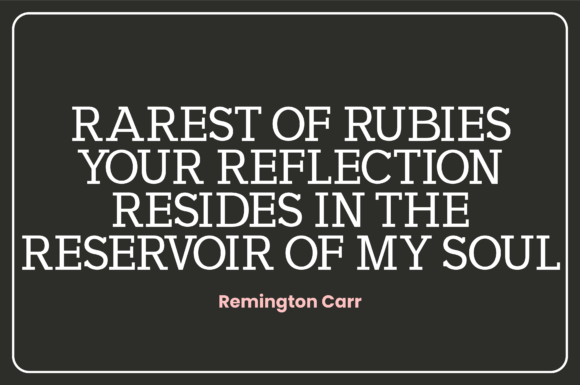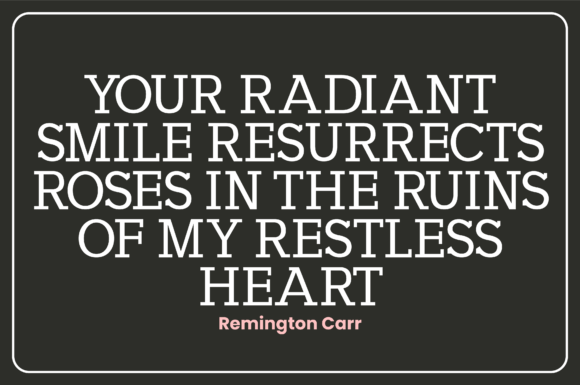
Anduba Font
Introducing Anduba – the epitome of elegance, style, and sophistication. This unique slab serif font trio, comprised of Regular, Italic, and Retalic, effortlessly infuses your work with an aura of chic refinement.Ideal for a wide array of applications, Anduba shines in creating eye-catching labels for luxury perfumes and cosmetics, crafting engaging magazine covers and posters, formulating captivating flyers and social posts, and adding flair to fashion designs.When you incorporate Anduba in your creative repertoire, you’ll be delighted to see how rapidly it ascends to your favorites list. Experience the transformative power of Anduba, where style meets versatility.